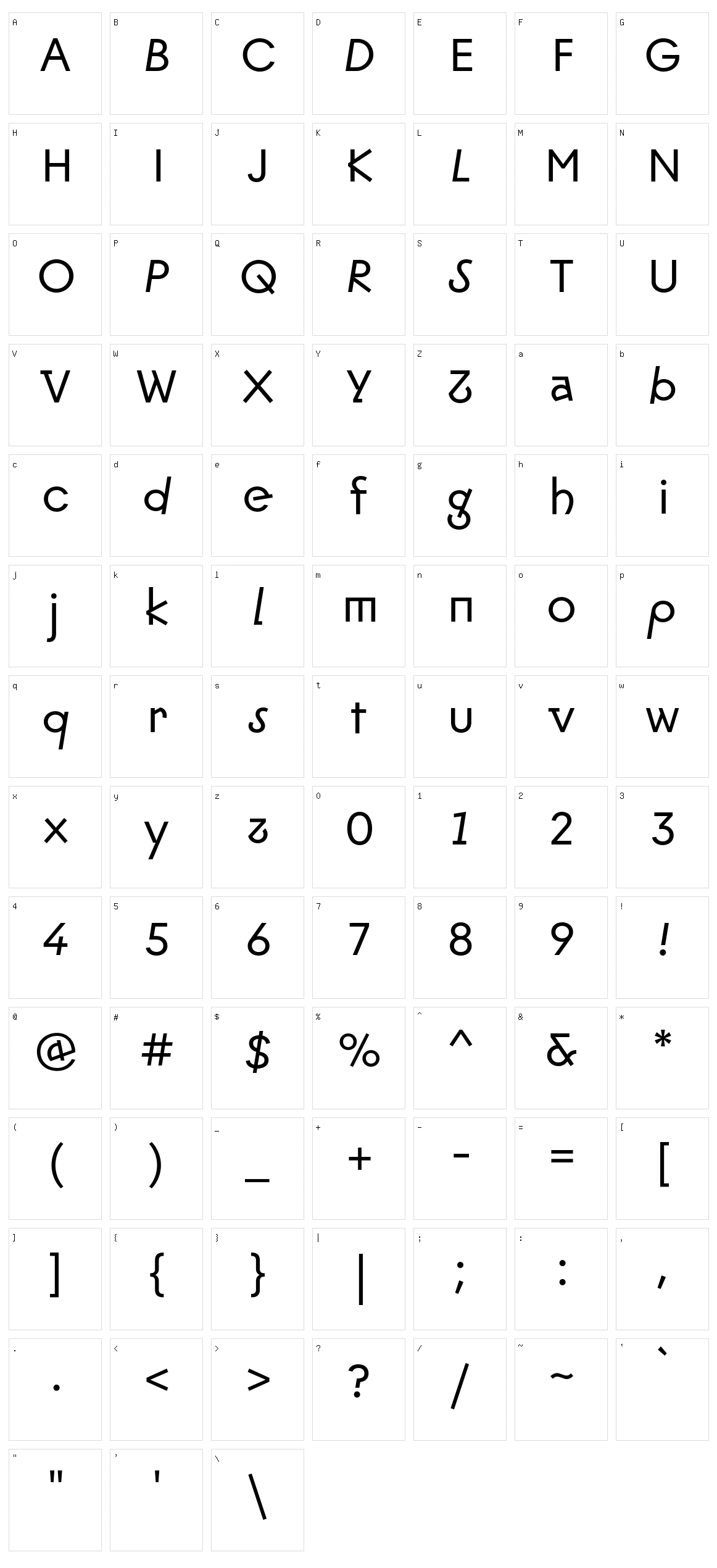
Pioneer 10 - this is an experimental grotesque that combines the geometric functions of a direct and oblique font. Supports Cyrillic and extended Latin.